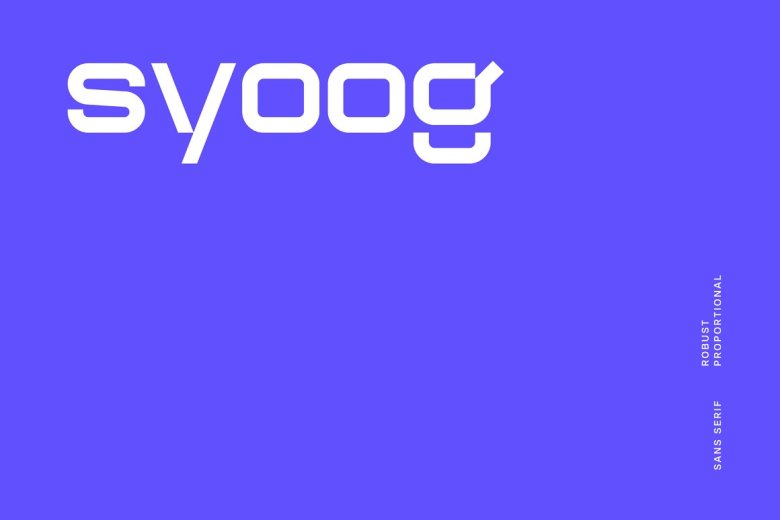
Syoog Font
Syoog is a sturdy proportional linear sans font designed for headlines, editorials, packaging, branding printing, as well as typographic use. With over 150 glyphs available in both opentype.otf and.woff formats. It makes an excellent addition to your headlines or editorials and can also be used as typography!
Syoog Sans Serif Font